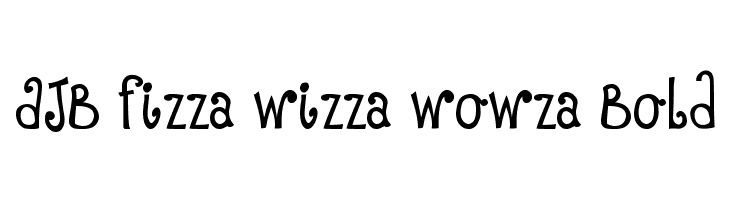
A playful, bold font with quirky, curvy letterforms and a lively style.
A whimsical, hand-drawn font with decorative uppercase letters and playful lowercase characters.
A whimsical, playful script font with a handwritten style.
A playful, handwritten font with whimsical embellishments and dynamic strokes.
A whimsical, curly font with playful loops and flourishes.
A decorative script font with swirling, whimsical embellishments.
A whimsical and decorative font with vintage-modern elements and playful serifs.
A whimsical, decorative font with charming swirls and curls.
A playful, hand-drawn font with a whimsical and organic style.
A playful, whimsical font with exaggerated curves and a hand-drawn style.